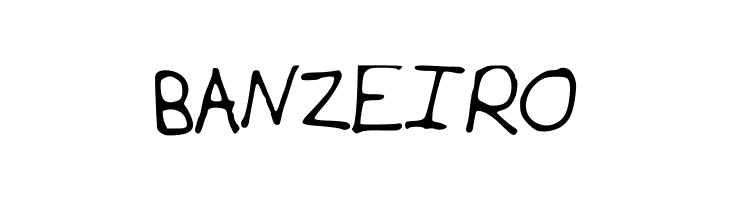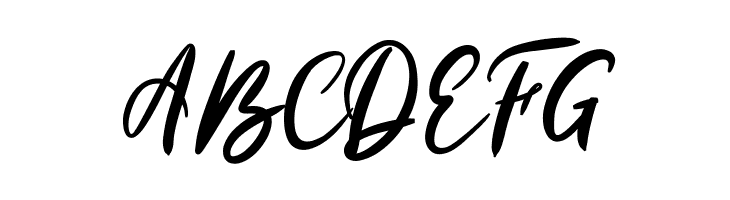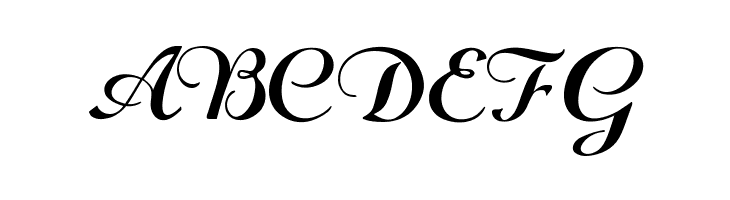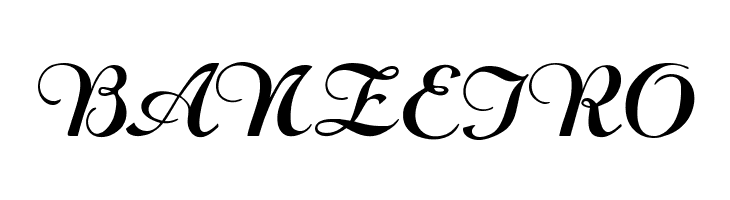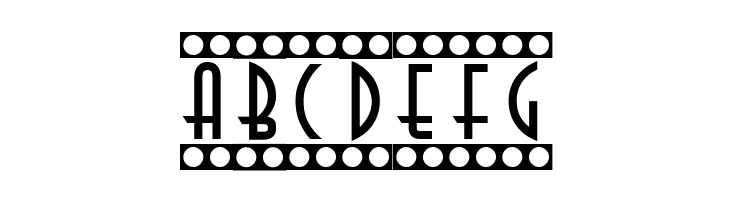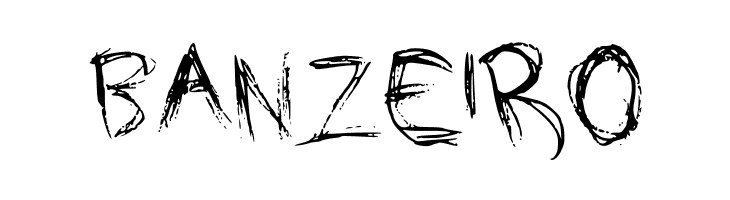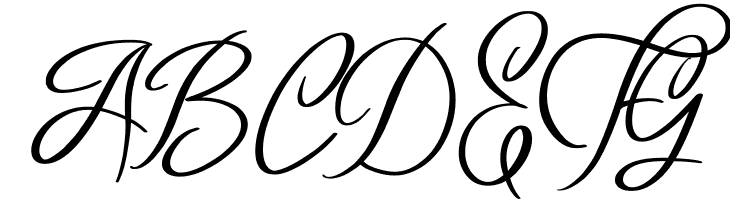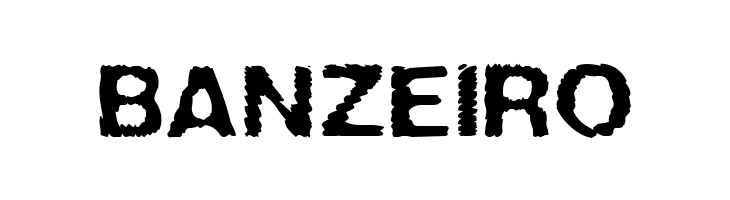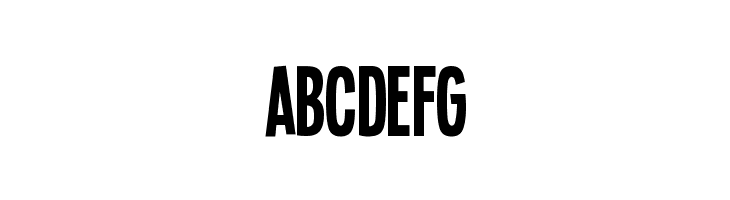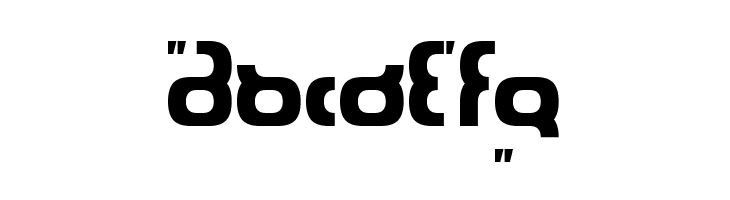
An Art Deco-inspired font with geometric shapes and elegant embellishments.
A playful, hand-drawn font with bold, rounded edges and a cartoonish style.
A whimsical, decorative font with a hand-drawn, artistic style.
A dynamic and expressive script font with fluid, cursive strokes.
A playful, bold typeface with rounded, consistent strokes.
A bold, angular font with a futuristic and cryptic design.
A playful, bold, hand-drawn font with thick outlines and a whimsical style.
A playful and elegant script font with a handwritten appearance.
A playful, hand-drawn font with a whimsical, childlike style.
A classic script font with elegant, flowing curves and sophisticated style.
A bold, sans-serif font with strong, thick strokes and a modern aesthetic.